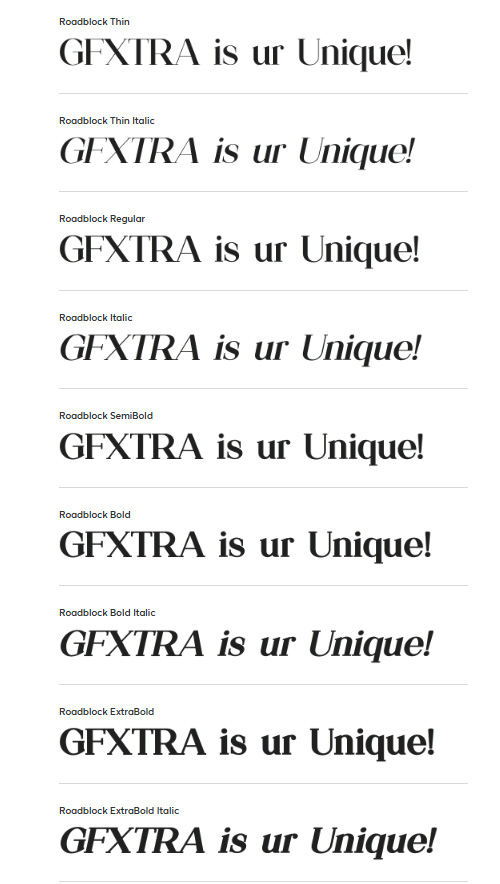
- Roadblock Serif Font. The modern display font feels beautiful classy, elegant, and stylish. This font is ideally suited for a wide variety of projects, such as signature, stationery, logo, wedding, typography quotes, magazine or book covers, website headers, branding, and more. Also, fashion-related branding or editorial design displays both masculine and feminine qualities.